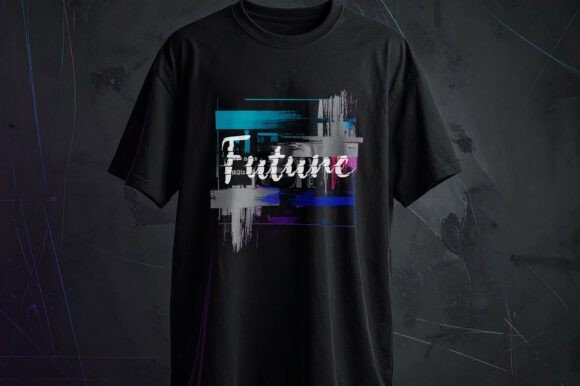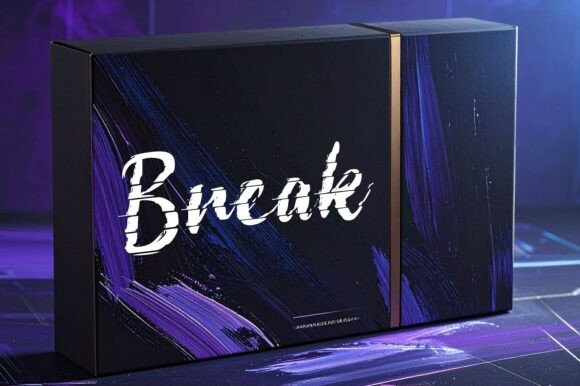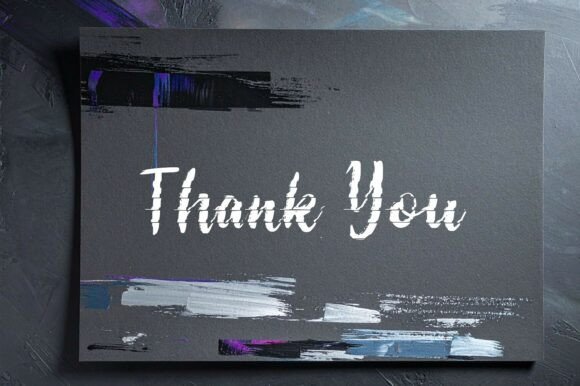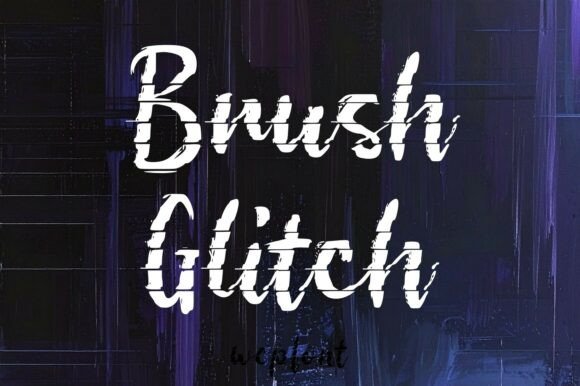
The Mesmerizing World of Brush Glitch Font
Have you ever been in the middle of a design project, pouring your heart and soul into it, only to realize that something is missing? You’re not quite sure what it is, but you know it’s not quite right. I recall a project where I was tasked with creating a bold, eye-catching poster for a music festival. I tried font after font, but nothing seemed to capture the essence of the event. That was until I stumbled upon the Brush Glitch font.
This audacious creation is not merely a font, but a mesmerizing blend of digital artistry born from the sheer energy of brush strokes and the compelling impact of glitch graphics. It’s a game-changer, trust me!
Unleashing the Power of Brush Glitch
Brush Glitch is bold, making every design filled with authenticity and future-forward elements that are etched into memory. This irresistibly unique design sprouts from raw vigor, fervor, and meticulous craftsmanship that distills an avant-garde style. It’s perfect for designers, crafters, and creative hobbyists looking to add a touch of modernity to their work.
So, what makes Brush Glitch so special? Let’s dive into the details!
- ✨ Unique blend of brush strokes and glitch graphics
- ✅ Bold and eye-catching design
- 🎨 Perfect for creating vibrant and distressed aesthetics
While Brush Glitch is an amazing font, there are a few things to keep in mind:
- 🤔 May not be suitable for body text due to its bold and distressed nature
- ⚠️ Limited use of punctuation and special characters
The Backstory of Brush Glitch
The story behind Brush Glitch is one of creativity and experimentation. According to the designer, the font was inspired by the raw energy of street art and the imperfections of digital glitches.
The designer wanted to create a font that would capture the essence of modern digital artistry, while also paying homage to the imperfections and quirks of traditional brush strokes.
| Font Name | Brush Glitch Font |
| Author | wep – Wahyu Eka Prasetya |
Q: What is Brush Glitch font?
A: Brush Glitch is a unique font that combines the energy of brush strokes with the impact of glitch graphics.
Q: Is Brush Glitch suitable for body text?
A: No, Brush Glitch is best used for headlines and titles due to its bold and distressed nature.